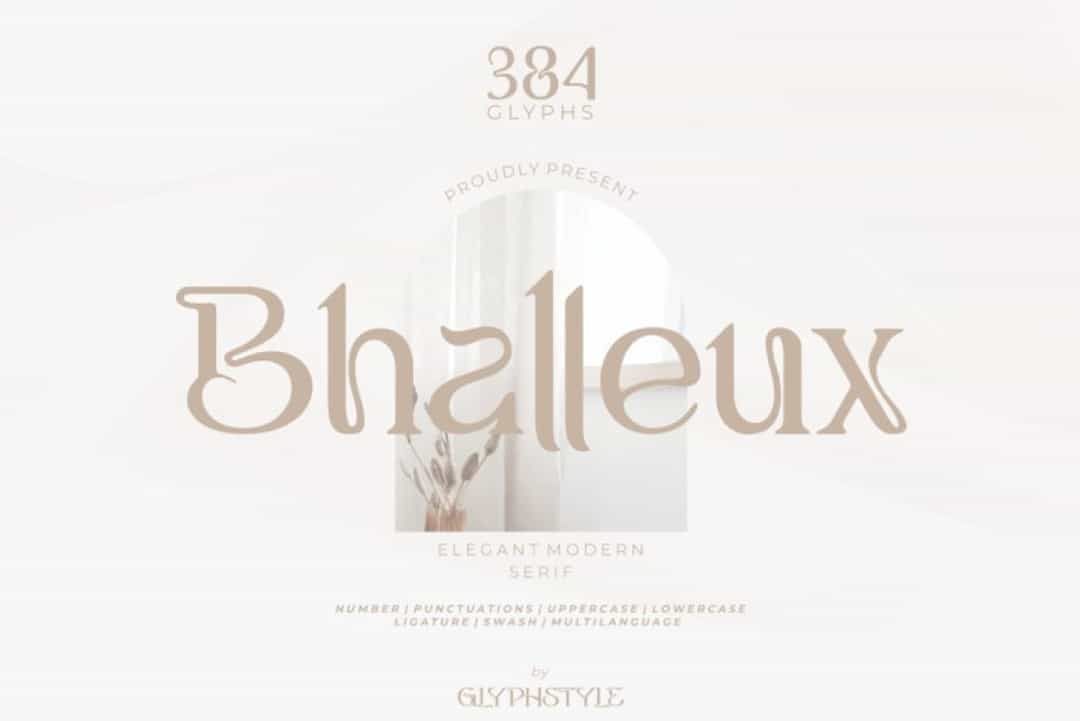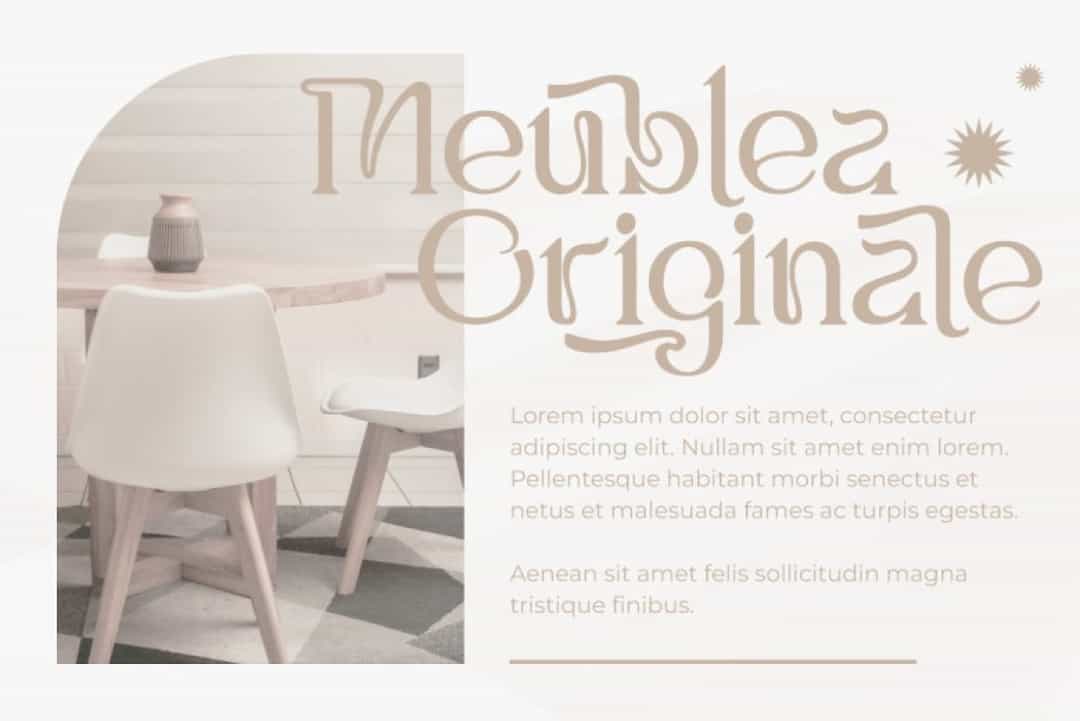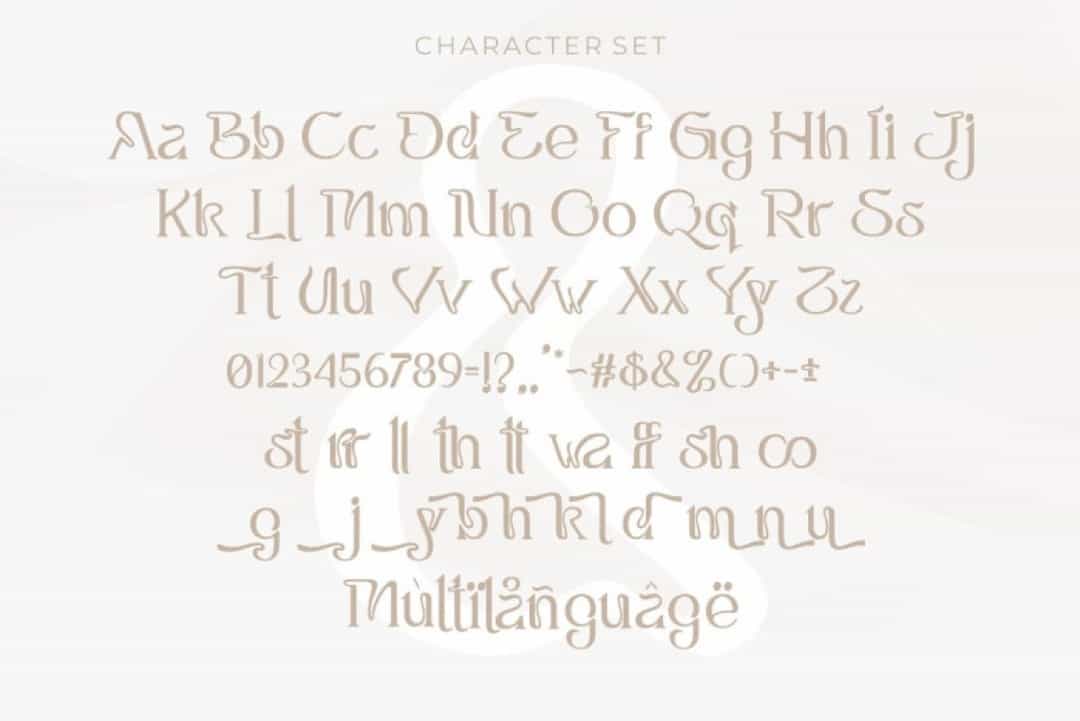
Bhalleux is an elegant modern serif font featuring unique letters with curving shapes that stand out from the norm, featuring various ligatures and swashes for an attractive and modern aesthetic. A true serif font with its own stylish yet graceful curve.